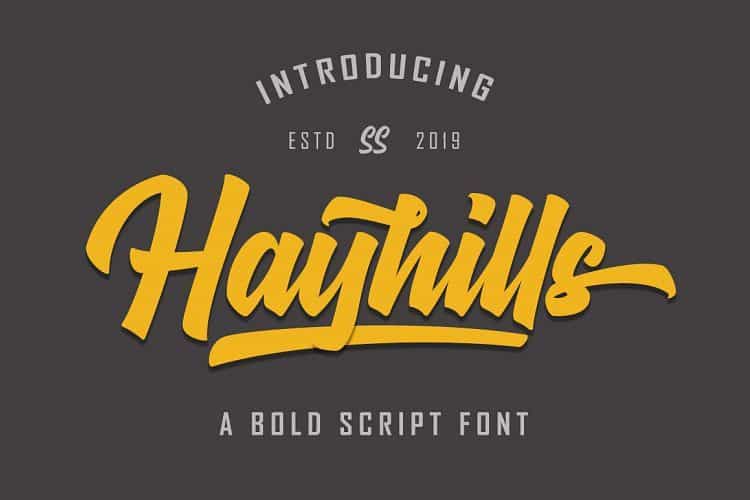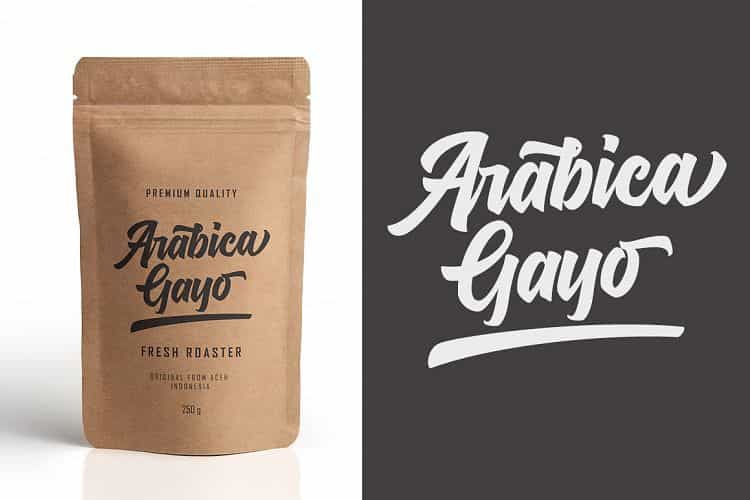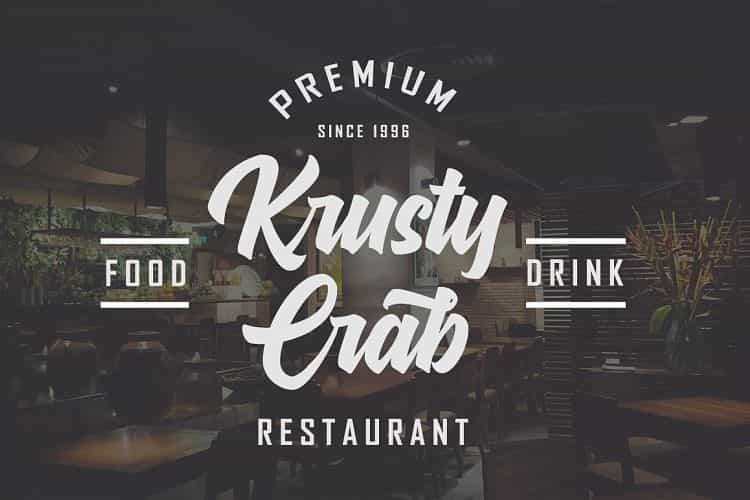
Introducing Hayhills Font. It is created and uploaded by Suby Studio. Hayhills Bold Script font is a script font that appears bold and has its own kind of style. This font is ideal for your next creative design projects including Logotype, printed quotes, invitations, cards, product packaging, headers, Letterhead, Poster, Apparel Design, Label and etc.